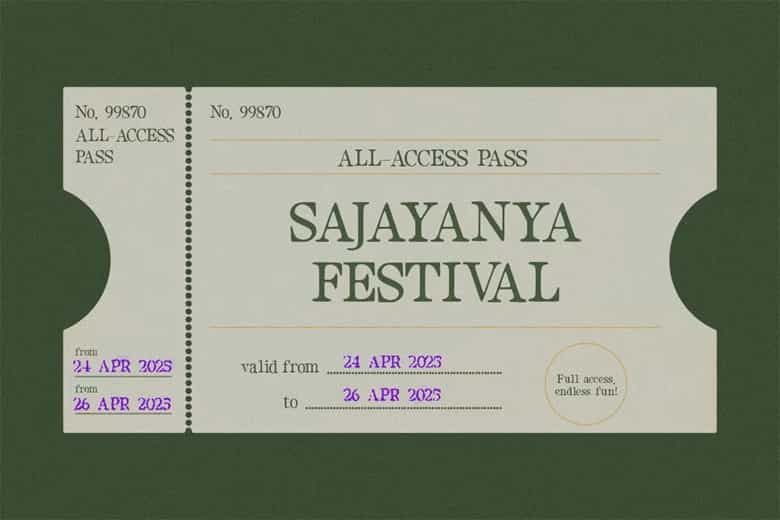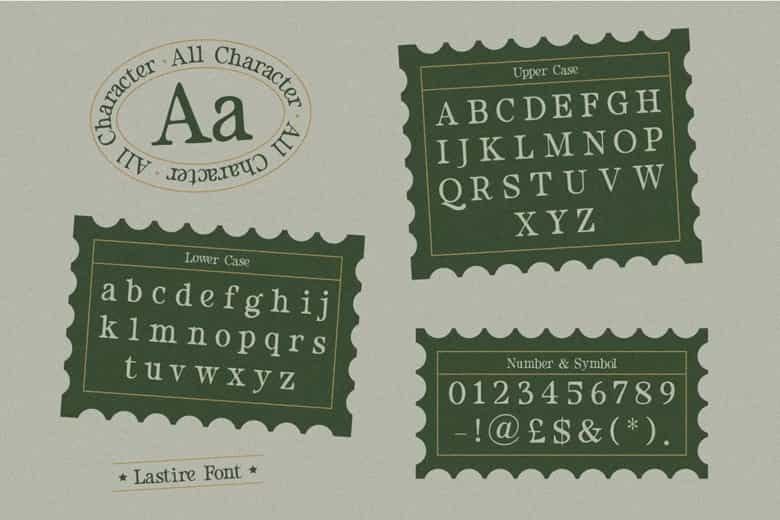
Lastire is a new elegant typeface that features serif font styles with somewhat bold form and antique appeal. Especially for classic trends, Lastire contributes an elegant and distinctive flair for branding, magazine, advertisements, and packaging.